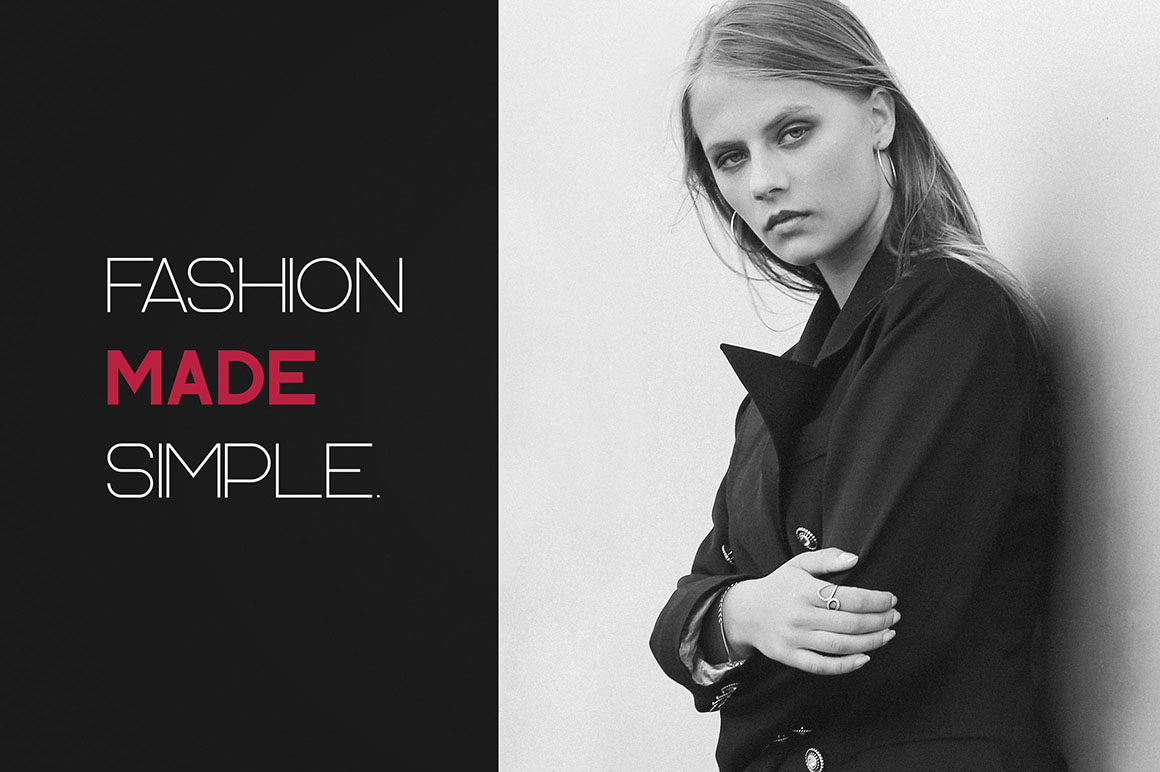
Brand new modern or branding style typography bundle with 17 multilanguage display fonts & 24 vector logo templates! All these fonts & graphics are modern & unique so you can use it for any kind of modern branding projects or T-shirt designs 😉
Kavo Family from VPcreativeshop contains 17 multilanguage display fonts and 24 vector illustrations or logo templates! Don’t miss this creative & modern style font & branding bundle 😉
Kavo is clean, modern family with 17 fonts, 24 awesome vector designs, 24 logo templates and multilingual support. It’s a very versatile font that works great in large and small sizes. Kavo styled serif is perfect for branding projects, home-ware designs, product packaging, magazine headers – or simply as a stylish text overlay to any background image.
Creative display fonts & logo illustrations for your new projects!
Kavo Family – 17 fonts + 24 logo templates:
- Uppercase, numeral, punctuation & Symbol
- Sans serif – light, regular, bold, black
- Inline – regular, bold, black
- Serif – hairline, light, regular, bold, black
- Serif Styled – hairline, light, regular, bold, black
- Ligatures
- Multilingual support